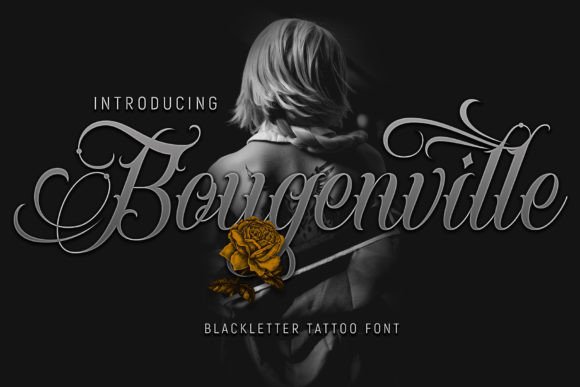
Introducing Bougenville Font, the ultimate choice for logotype enthusiasts! Crafted with creativity and precision by Letter Stock, this contemporary blackletter tattoo font is here to elevate your designs to new heights.
With its captivating and edgy appeal, Bougenville Font is the perfect addition to logos, t-shirt designs, posters, flyers, and various brand identity items. Its unique and modern twist on the classic blackletter style will make your projects stand out from the crowd.
Imagine the impact Bougenville Font will have on your brand. Its bold and expressive strokes exude confidence and sophistication, instantly grabbing attention and leaving a lasting impression. Whether you're aiming for a vintage, gothic, or modern aesthetic, this font effortlessly adapts to your vision, making it a versatile choice for any design project.
Unlock your design potential with Bougenville Font and watch your ideas come to life. Let your imagination run wild as you explore the endless possibilities this font offers. From branding to advertising, Bougenville Font is your secret weapon for creating captivating and memorable visuals.